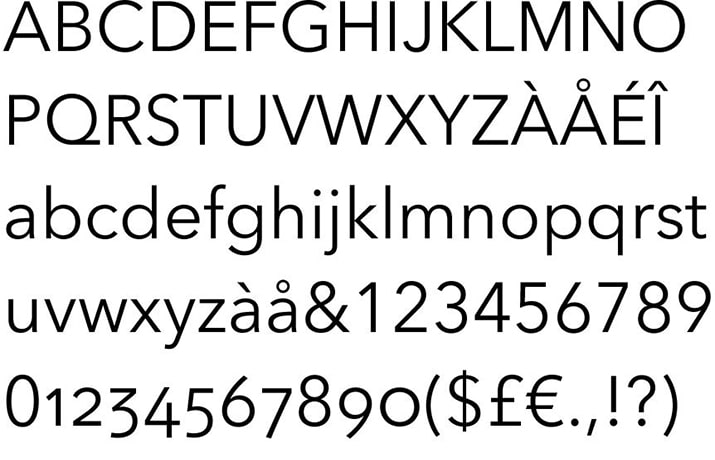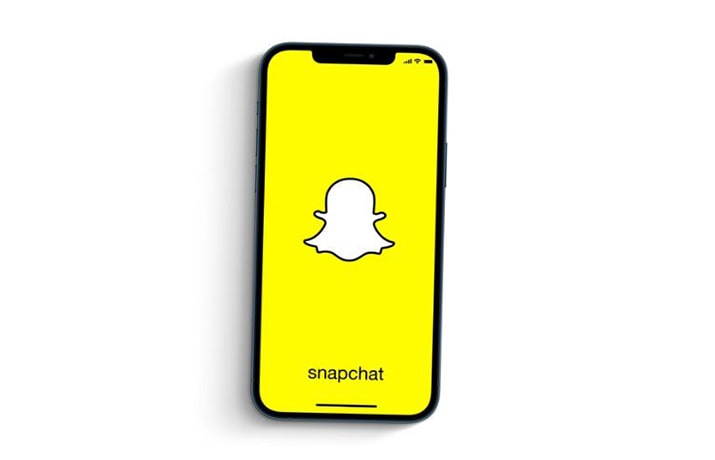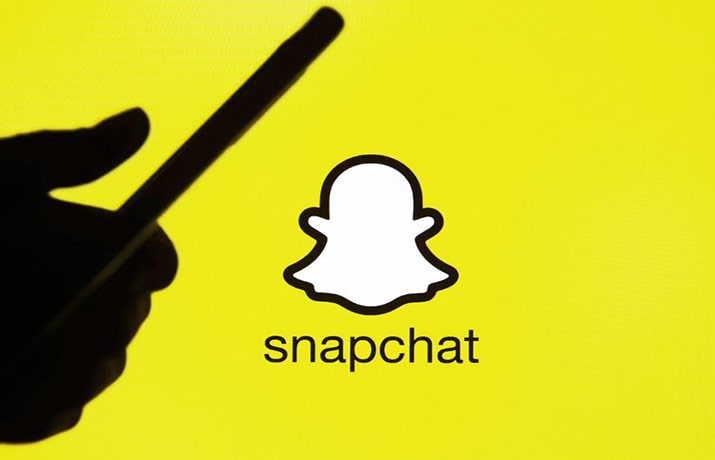
Today, we introduced a new logo font that used to be known as the Snapchat font. A famous designer created this font named Adrian Frutiger.
The font was first released in mid-1988 by Linotype Font Foundry. Snapchat is primarily a multimedia messaging app that was initially released in September 2011.
It has put a lot of emphasis on clients connecting with virtual stickers and augmented reality objects. According to a 2018 report, the app has 187 million active users on a regular basis.
Due to its popularity, many graphic designers want to know about the logo font used for the Snapchat app. Avenir Next Font is the font being used for Snapchat’s logo.
Font Name: | Avenir Next Font Family |
Style: | Sans serif, Display, Typeface |
Font Designer: | Adrian Frutiger |
It is also perfect for creating invitation cards, mobile apps, wedding cards, business cards, banner ads, headline or titlings, banner ads, logo designs, and product packaging. You can use this font to add color to your posts and make them stylish and unique from all other typefaces.